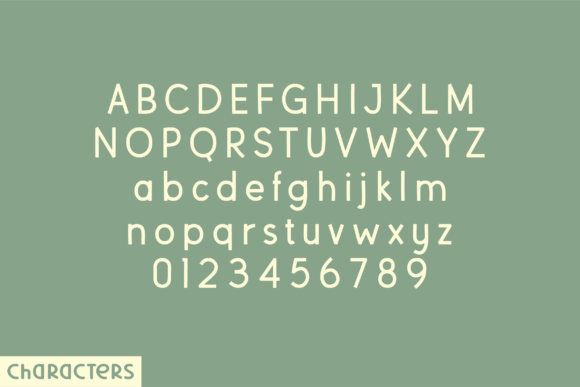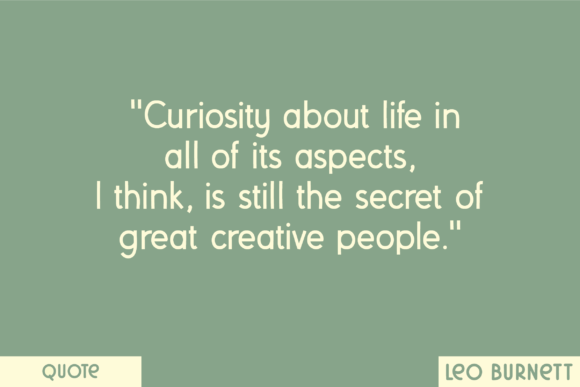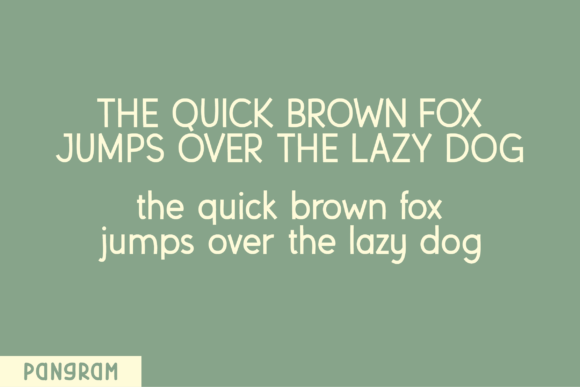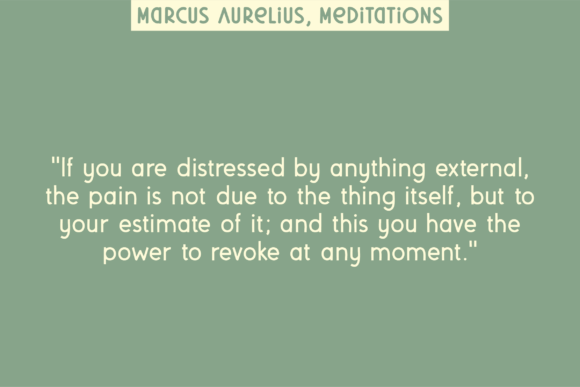
Cucumber Font: The Refreshingly Unique Sans Serif Font
In the world of typography, a new font has emerged that’s making waves with its refreshing and unique design. Say hello to Cucumber Font, a natural sans serif font that’s perfect for designers and crafters looking for a distinctive touch. In this article, we’ll dive into what makes Cucumber Font so special and why it’s a must-have for your design projects.
The Story Behind Cucumber Font
Cucumber Font is a sans serif font that’s been crafted with precision and attention to detail. What sets it apart is that it’s been created without changing a single node in each character’s indentation. This approach has resulted in a font that’s not only visually appealing but also retains a natural, organic feel.
Key Features of Cucumber Font
• Unique Design: Cucumber Font boasts a distinctive design that’s both modern and elegant. Its sans serif structure makes it perfect for a wide range of design applications.
• Natural Feel: The font’s natural, unaltered node indentation gives it an organic feel that’s hard to find in digital fonts.
• Versatility: Cucumber Font is perfect for various design projects, including quotes, notes, tees, and product design.
• Easy to Read: The font’s clean lines and clear structure make it easy to read, even at smaller font sizes.
Cucumber Font is a dream come true for designers and crafters looking for a unique and refreshing font to add to their arsenal. Whether you’re working on a branding project, creating merchandise, or designing a website, this font is sure to make your designs stand out.
Use Cases for Cucumber Font
So, what can you use Cucumber Font for? The possibilities are endless, but here are some ideas to get you started:
• Quotes and Typography: Use Cucumber Font to create stunning quote designs that are sure to grab attention.
• Notes and Journals: Add a touch of elegance to your notes and journals with Cucumber Font.
• T-Shirts and Merchandise: Create eye-catching tees and merchandise with Cucumber Font.
• Product Design: Use Cucumber Font to create beautiful product labels, packaging, and branding materials.
Why Choose Cucumber Font?
With so many fonts available, why choose Cucumber Font? Here are just a few reasons:
• Uniqueness: Cucumber Font is unlike any other font out there. Its distinctive design is sure to make your designs stand out.
• Versatility: This font can be used for a wide range of design projects, from digital to print.
• Ease of Use: Cucumber Font is easy to read and works well at various font sizes.
Font Name Cucumber Font
Author Hanna Bie
In conclusion, Cucumber Font is a refreshing and unique sans serif font that’s perfect for designers and crafters looking for a distinctive touch. Its natural, organic feel and versatility make it a must-have for various design projects. Whether you’re working on a branding project, creating merchandise, or designing a website, Cucumber Font is sure to make your designs stand out.